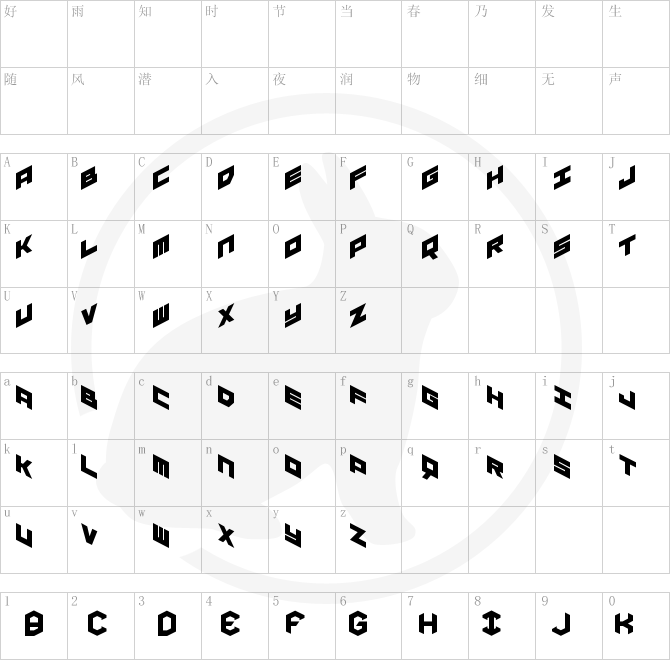
- Font Name:YAY USA
YAY-USA-Regular.ttf is a very beautiful artistic font, YAY-USA-Regular.ttf is widely used in the design and printing of various books and pictures,YAY-USA-Regular.ttf has a strong visual impact,YAY-USA-Regular.ttf is a commonly used font in newspapers, magazines and books, and is used in posters, e-commerce Poster design, store design, logo design, font design and other fields.YAY-USA-Regular.